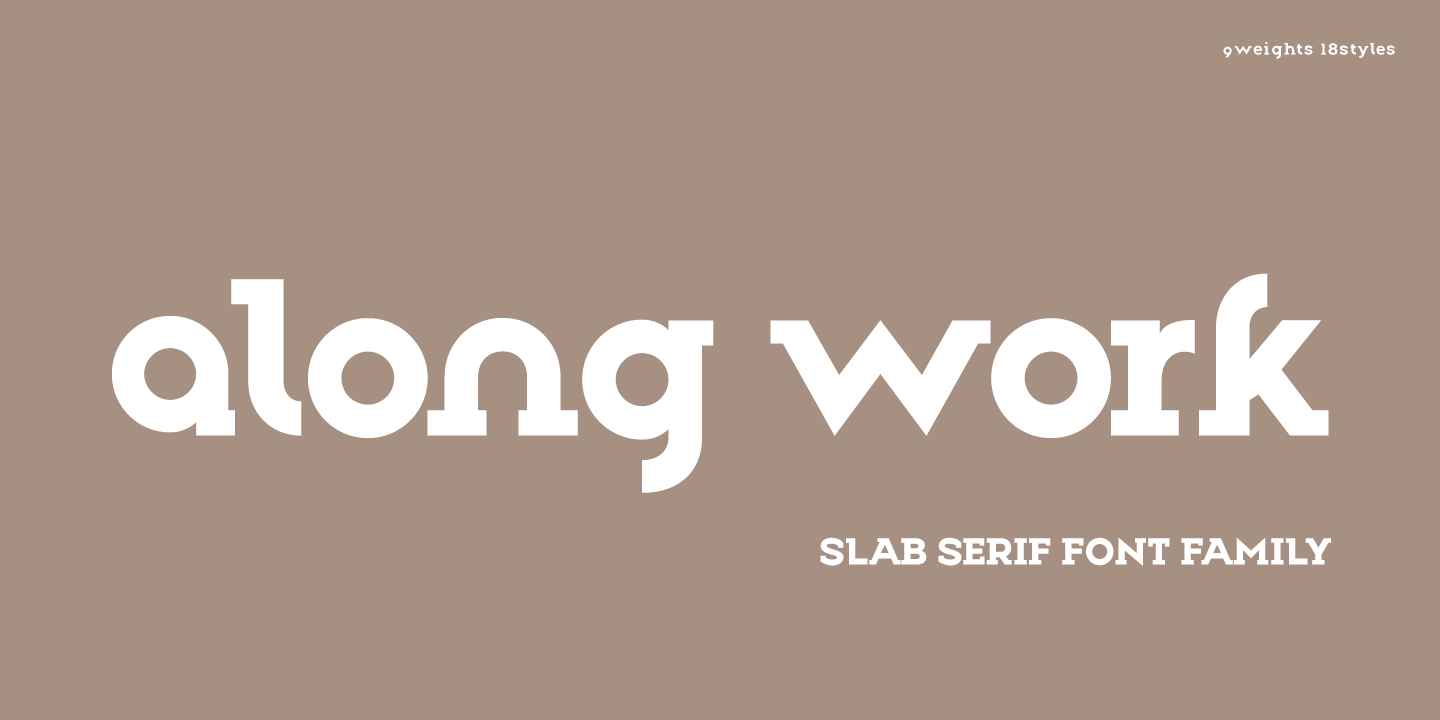
Along Slab Work Font is perfect for construction company branding, industrial worksite signage, manufacturing facility communications, blue-collar workforce materials, heavy-duty equipment marketing, and practical workplace documentation. Its hardworking character makes it ideal for labor unions, construction contractors, industrial training centers, workplace safety organizations, and any application requiring dependable typography that conveys honest work, industrial reliability, and the steadfast dedication of skilled craftspeople.
Along Slab Work Font is exciting because it embodies the honest strength and unwavering reliability of skilled manual labor through robustly crafted letterforms that reflect the solid foundation of industrial workmanship. Its sturdy proportions and workmanlike details honor the dignity of physical labor and the craftsmanship that builds our modern world, making it perfect for organizations celebrating the essential contributions of working professionals. The font's work-focused character instantly communicates competence and trustworthy expertise.
Along Slab Work Font family includes work-ready weight variations typically featuring Regular, Medium, Bold, and Heavy options with consistent slab serif styling that maintains industrial durability. The family often incorporates workplace symbols, industrial icons, and safety-related characters designed for professional work applications, providing designers with comprehensive tools for creating authentic, workforce-focused typographic solutions.
When selecting industrial workforce typography solutions, Along Slab Work Font Free Download represents an exceptional choice for work-centered projects. This dependable typeface brings instant workplace credibility to any design, making it invaluable for construction companies, industrial manufacturers, and labor organizations requiring honest, hardworking typography. Whether you're developing workforce training materials, creating industrial safety communications, or designing blue-collar marketing campaigns, Along Slab Work Font provides the solid reliability and work ethic authenticity essential for connecting with working professionals in today's labor-focused marketplace.